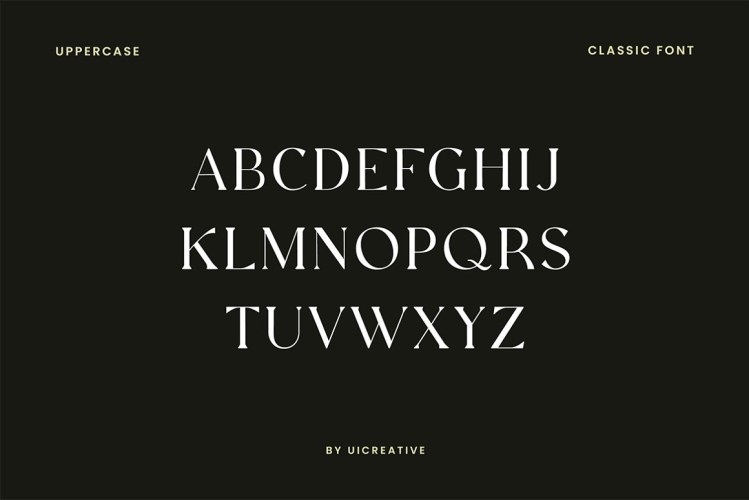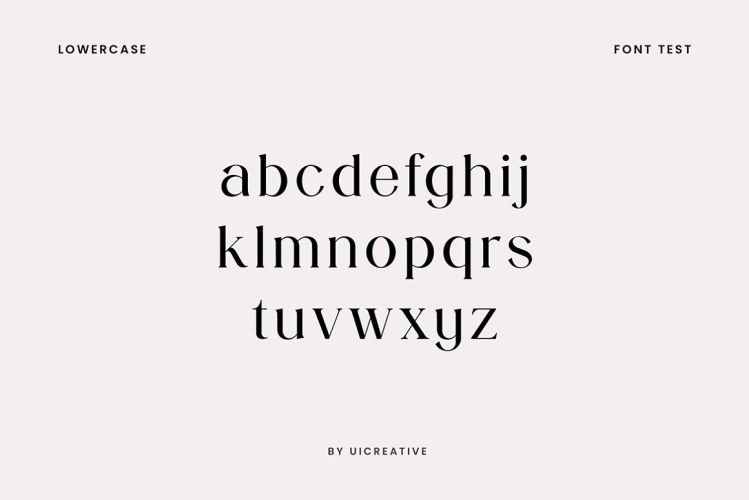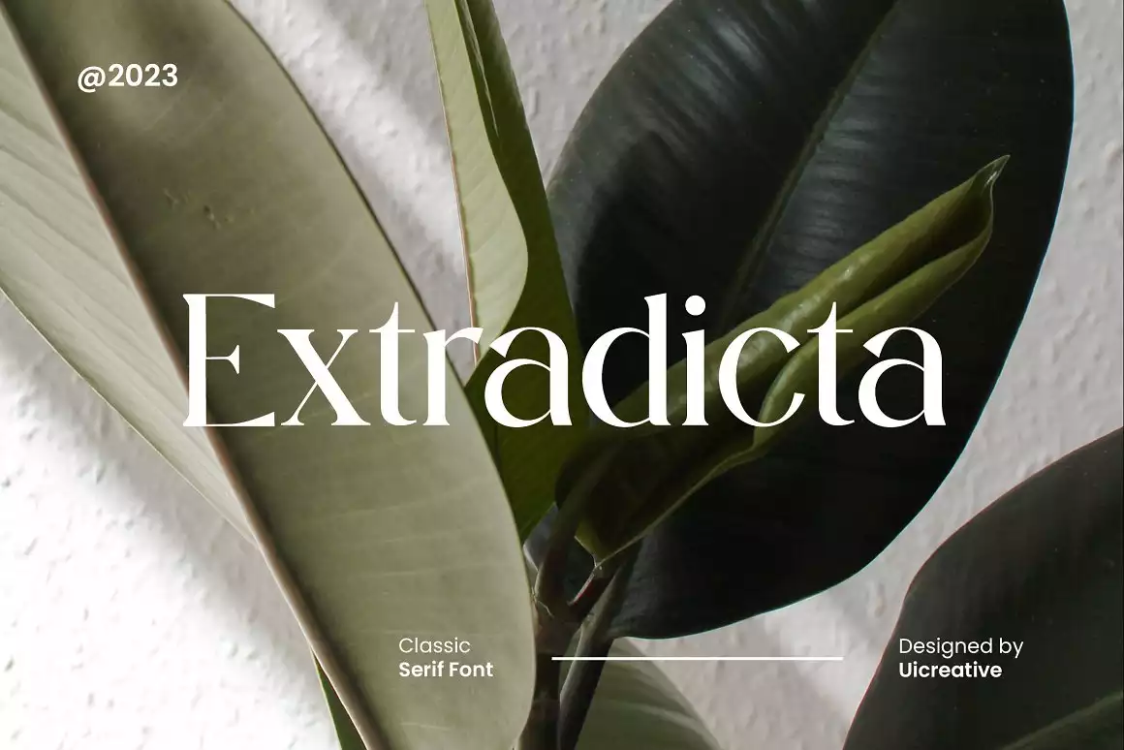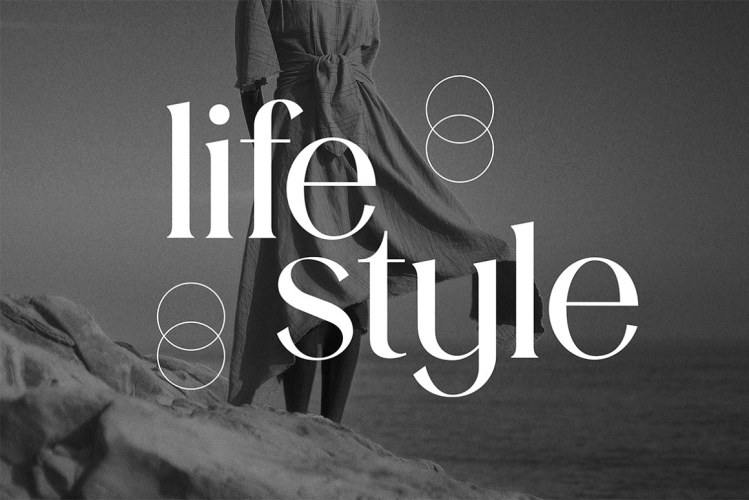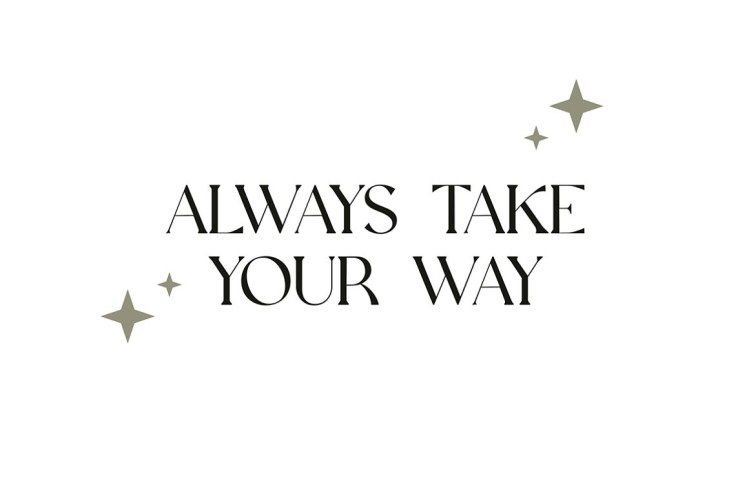
Extradicta Classic Serif Font
Introducing our new product the name is Extradicta Classic Serif Font. Modern Serif font that feels beautiful classy, elegant, and modern. This font is ideally suited for a wide variety of projects, such as signature, stationery, logo, wedding, typography quotes, magazine or book covers, website headers, clothing, branding, packaging design, and more. Also, fashion-related branding or editorial design displays both masculine and feminine qualities.
Where Extradicta Classic Serif Font works best
Extradicta Classic Serif Font gives long-form text a classic, trustworthy rhythm — ideal for magazine spreads, annual reports and book interiors.
Pair Extradicta Classic Serif Font with generous letter-spacing for wordmarks in fashion, hospitality, wine and jewellery branding.
Use Extradicta Classic Serif Font for slide titles in Keynote, PowerPoint or Google Slides to add authority without looking dated.
What is Extradicta Classic Serif Font good for?
Extradicta Classic Serif Font is a Serif Fonts typeface tagged Branding, Classic, Editorial, Elegant. It works well for headlines, logos, posters, social media graphics and branding projects that need a distinctive serif fonts look.